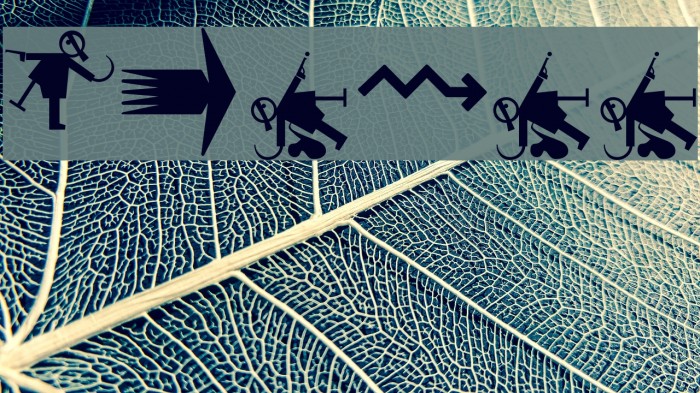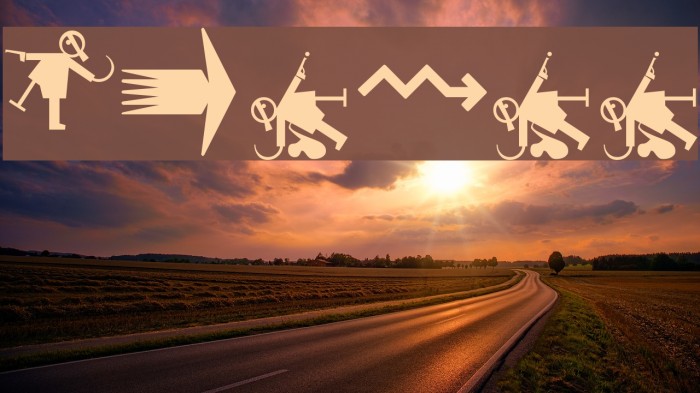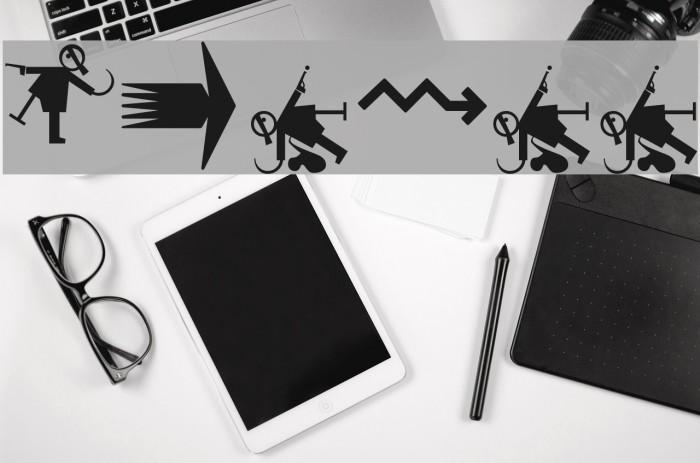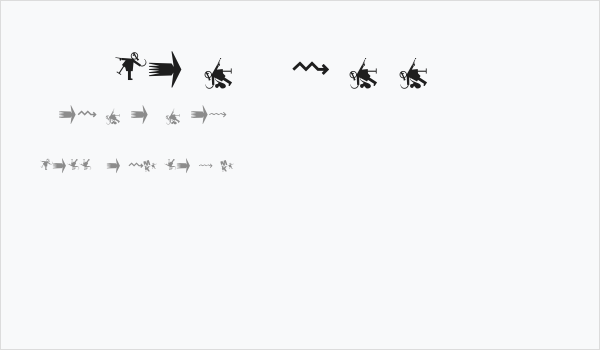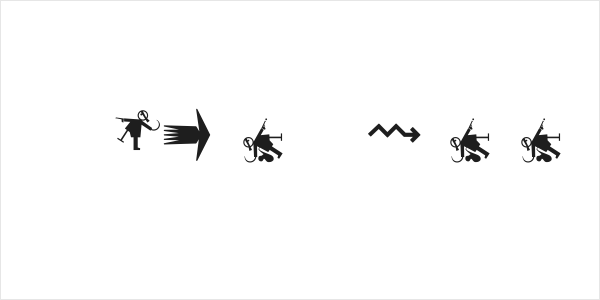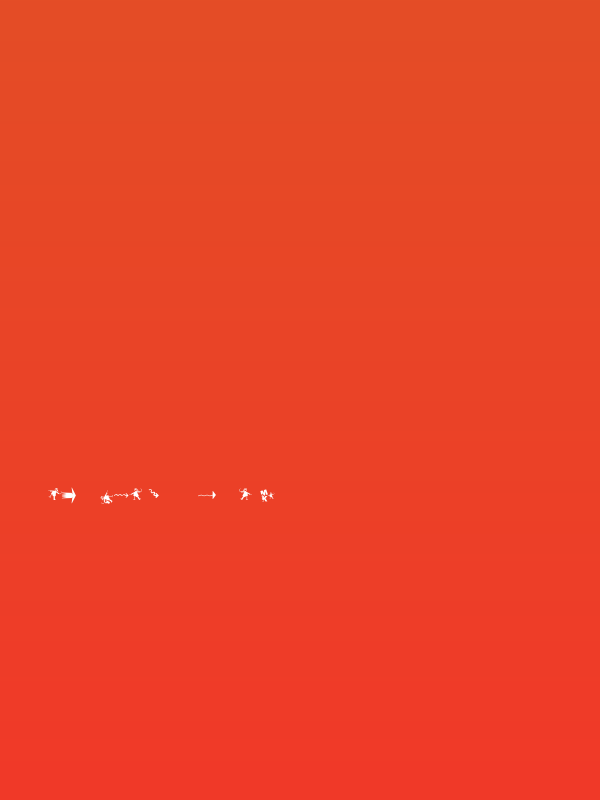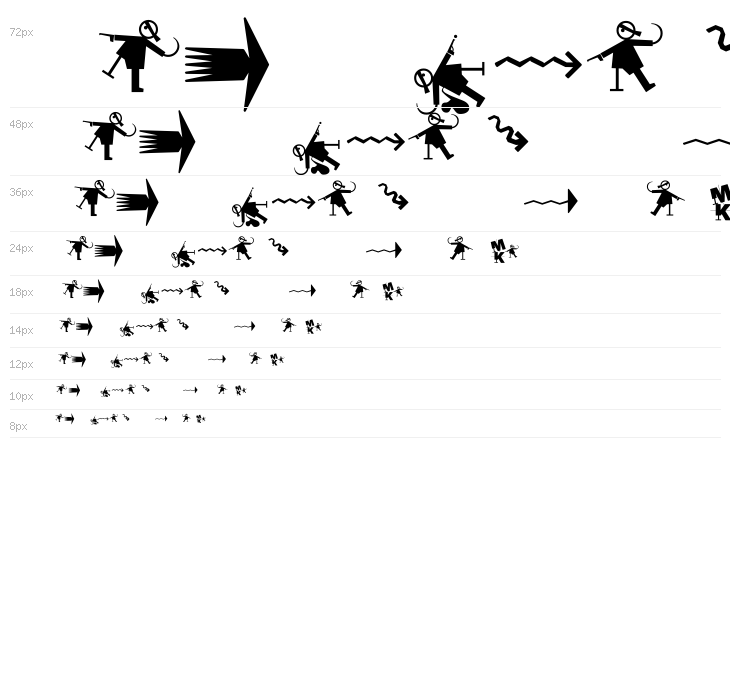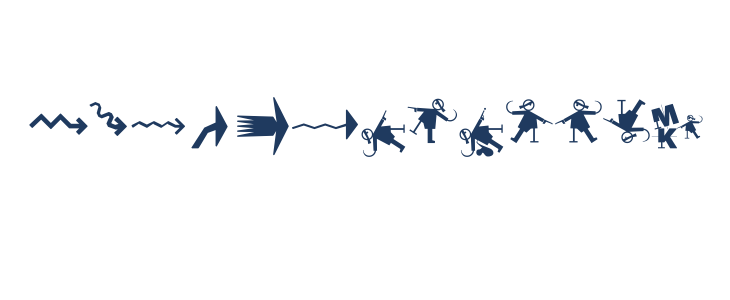
Prothesis-Caripix Font
Prothesis-Caripix Description
A highly decorative and illustrative font composed of abstract symbols, arrows, and stick-figure characters, each glyph resembling a pictogram or playful drawing rather than traditional letterforms.
| Overall Style | Decorative, Playful, Artistic |
| Use Case | Logos, Posters, Art projects, Children's content |
| Proposed Projects | Children's books, educational materials, playful posters, creative branding, art projects. |